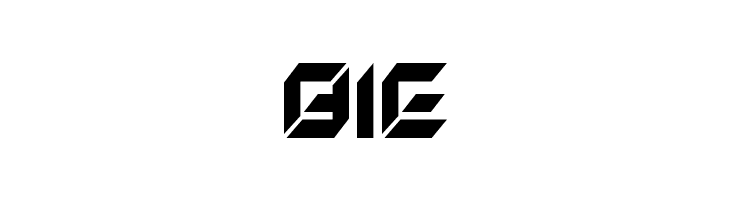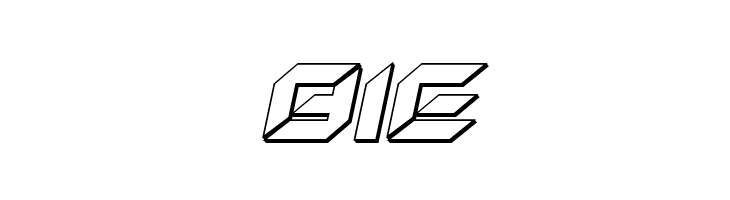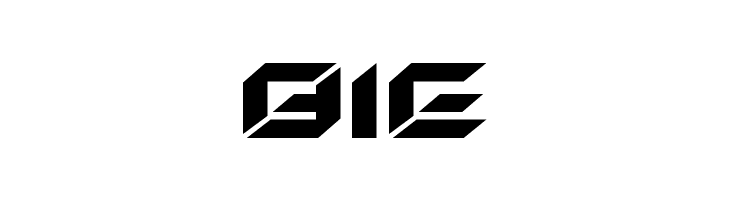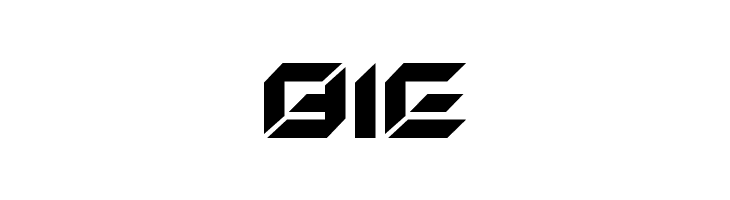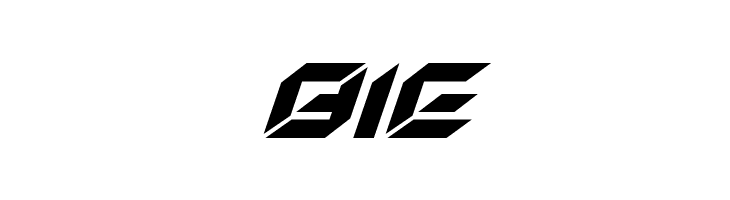
A bold, geometric font with a three-dimensional, futuristic style.
A bold, geometric 3D italic font with a modern, dynamic style.
A futuristic italic font with a gradient line effect, conveying speed and modernity.
A bold, geometric font with a futuristic, three-dimensional style.
A bold, angular, and futuristic font with a dynamic slant.